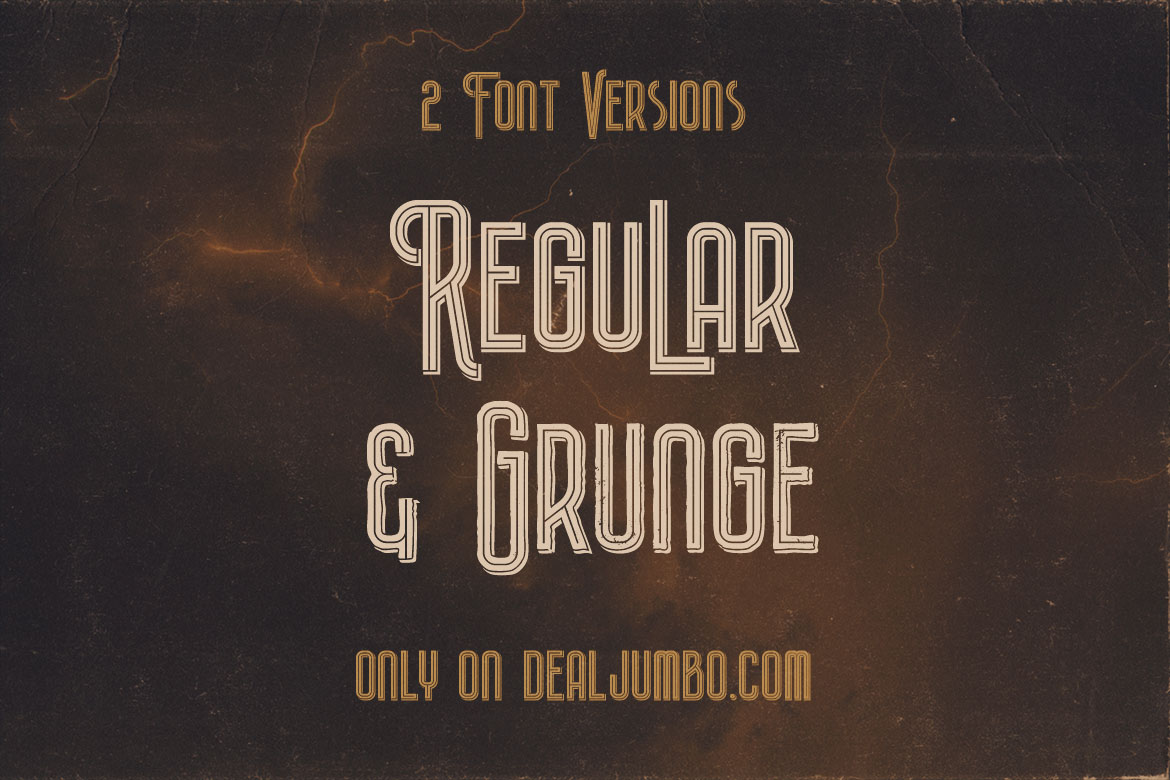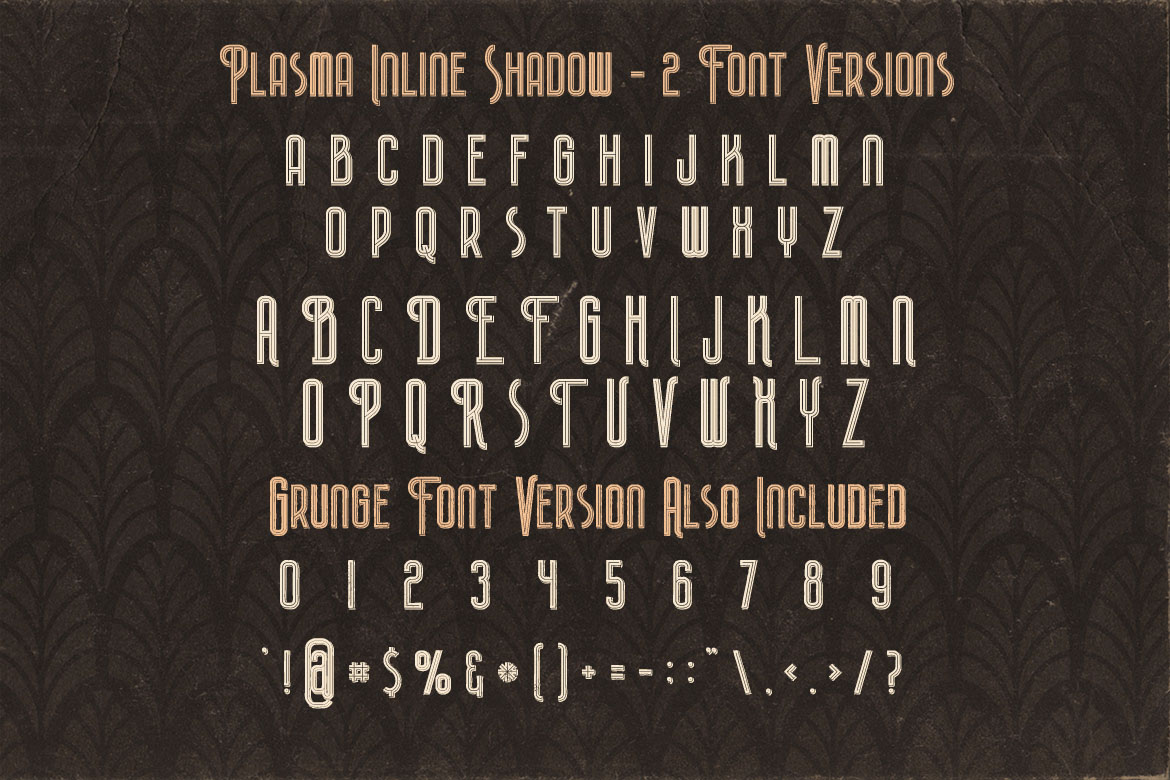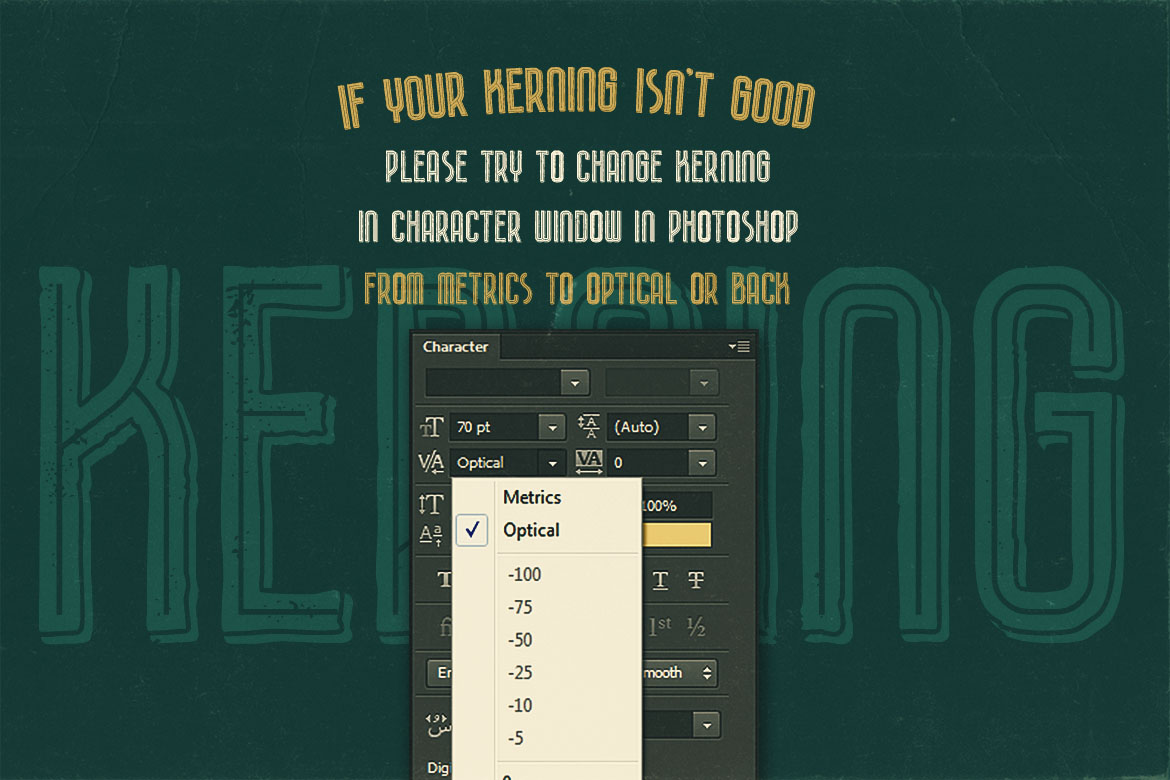
Plasma Inline Shadow – Free Font
Inline shadow retro or artdeco display sans – free font from Jumbo Design. Only basic characters in 2 font versions: Regular & Grunge. Download & enjoy 😉 Exclusive only for dealjumbo!